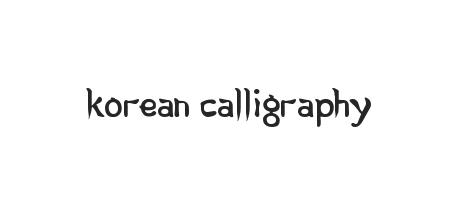
First seen on DaFont. This font is based on Hangeul the Korean alphabet and reflects calligraphy typeface. You can purchase full version and.
Search from a wide range of typography fonts. Hanja refers to the Chinese ideograph characters used in a typical Korean font. It comes with the Hangeul and basic Latin characters.
The Korean Calligraphy font contains 653 beautifully designed characters. I recommend that you use this font if you want to create an oriental mood. 210 Misslee is a tidy and stylish calligraphy Korean font that is free to download.
The strokes are organized and giving a sense of retro feel to it. Download korean calligraphy font with regular style. You can use this font for personal purpose.
Click to find the best 16 free fonts in the Korean style. This font is based on Hangeul the Korean alphabet and reflects calligraphy typeface. I recommend that you use this font if you want to create an oriental mood.
Discover and customize the font Korean Calligraphy and other similar fonts ready to share in Facebook and Twitter. TrueType and OpenType fonts. Hangul is the syllabic writing system used in Korea.